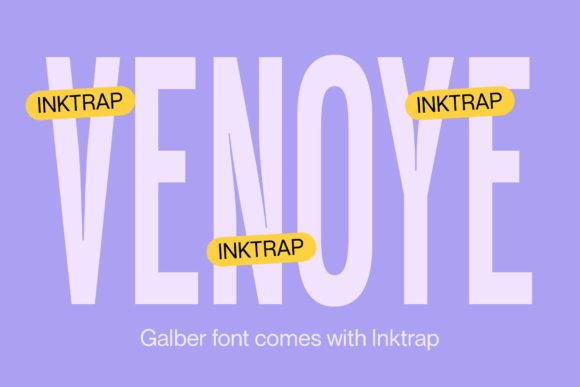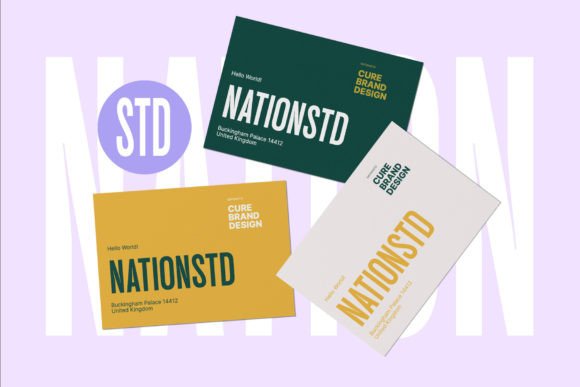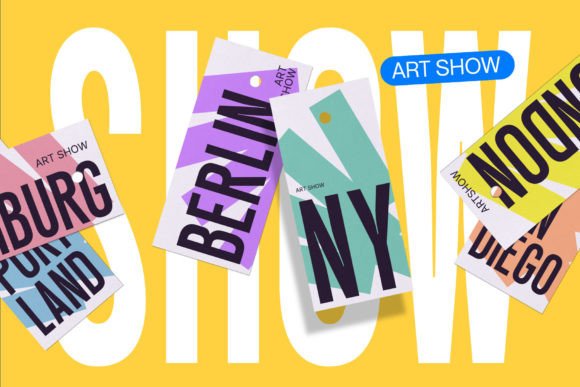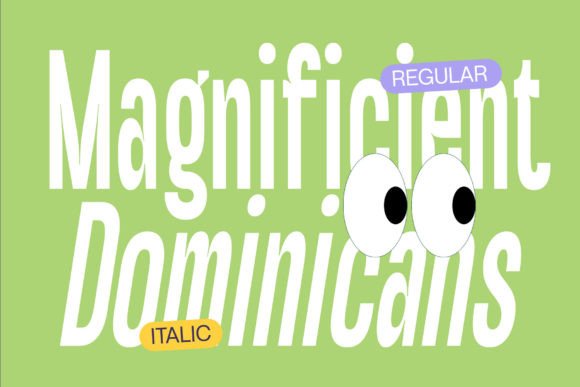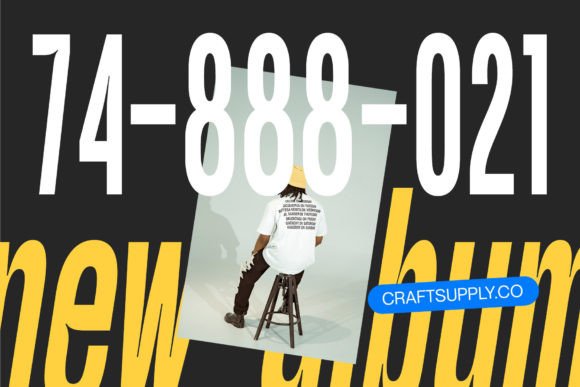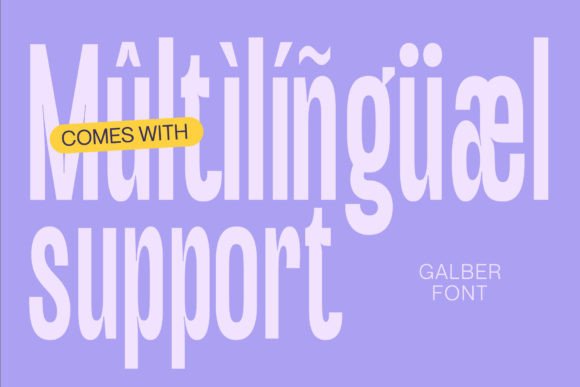
Introducing Galber – Compressed Sans Serif: Elevate Your Designs with a Bold Statement
In the world of typography, a font can make or break the visual impact of a design project. For designers and crafters looking to make a statement, Galber – a commanding typeface with a bold, condensed design – is here to revolutionize the way you approach your creative endeavors. With its impactful lines and modern allure, Galber adds a strong touch to your projects, making it the perfect choice for those who want to leave a lasting impression.
What is Galber Font?
Galber is a compressed sans serif typeface that boasts a unique blend of modernity and assertiveness. Its bold, condensed design makes it an ideal choice for designers who want to add a touch of sophistication and elegance to their projects. Whether you’re working on a greeting card, packaging, brand identity, poster, or any other design project, Galber is the perfect font to make your work stand out from the crowd.
Key Features of Galber Font
- Bold and Condensed Design: Galber’s unique design makes it perfect for headlines, titles, and short texts. Its bold lines and condensed structure ensure that your message is conveyed with impact and clarity.
- Modern Allure: Galber’s modern design ensures that your projects look contemporary and trendy. Its sleek lines and minimalist approach make it perfect for designers who want to add a touch of sophistication to their work.
- Versatility: Galber is a versatile font that can be used for a wide range of design projects, including greeting cards, packaging, brand identity, posters, and more.
- Easy to Read: Despite its bold and condensed design, Galber is easy to read, making it perfect for short texts and headlines.
Use Cases for Galber Font
Galber is an incredibly versatile font that can be used for a wide range of design projects. Here are some use cases where Galber can make a significant impact:
- Greeting Cards: Add a touch of elegance and sophistication to your greeting cards with Galber’s bold and condensed design.
- Packaging: Make your product stand out on store shelves with Galber’s modern and assertive design.
- Brand Identity: Establish a strong brand identity with Galber’s unique and recognizable design.
- Posters: Create eye-catching posters that grab attention with Galber’s bold and condensed design.
Why Choose Galber Font?
With so many fonts available, why choose Galber? Here are some reasons why Galber stands out from the crowd:
- Unique Design: Galber’s bold and condensed design makes it a unique and recognizable font that can add a touch of sophistication to your projects.
- Versatility: Galber can be used for a wide range of design projects, making it a versatile addition to your font library.
- Easy to Read: Despite its bold design, Galber is easy to read, making it perfect for short texts and headlines.
- Modern Allure: Galber’s modern design ensures that your projects look contemporary and trendy.
In conclusion, Galber – Compressed Sans Serif is a commanding typeface that can elevate your designs with its bold, condensed design. Its modern allure, versatility, and ease of readability make it perfect for a wide range of design projects. Whether you’re a designer or crafter, Galber is an excellent addition to your font library. So, feel free to play with this typeface and make a striking statement that simply can’t be ignored!
With Galber, you can add a strong touch to your projects and make them look eye-catching and trendy. Don’t settle for ordinary fonts – choose Galber and make a bold statement with your designs!